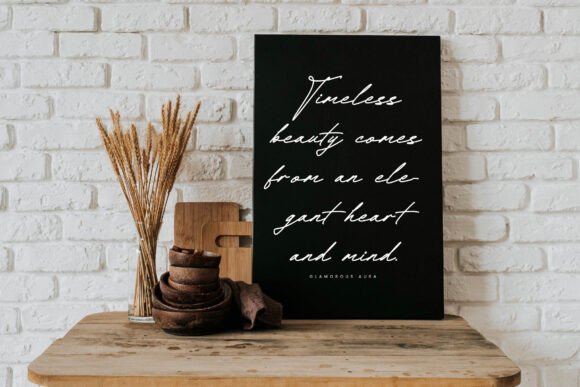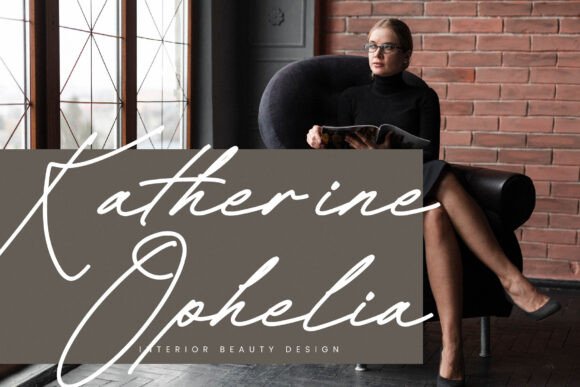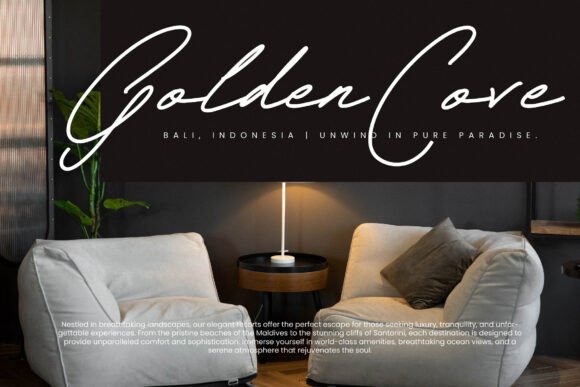
Introduction to Rullian Vicotas Font
As a designer, there’s nothing quite like that moment when a project comes together and you see your vision take shape. The thrill of creation is exhilarating, but it’s often the small details that make all the difference. A beautifully crafted font can elevate a design from ordinary to extraordinary, and that’s exactly what the Rullian Vicotas Font delivers. With its sleek, monoline signature script, this font is perfect for any project that demands a touch of luxury and sophistication.
Whether you’re working on a high-end branding project, designing a set of homewares, or creating a stunning invitation card, the Rullian Vicotas Font is an invaluable resource that’s sure to impress. Its high quality design and transparent background make it easy to use, and with its versatility, you can rest assured that it will be a valuable addition to your design toolkit.
Key Features of Rullian Vicotas Font
- Unique and elegant script font with a transparent background, perfect for adding a touch of sophistication to your designs.
- Includes 6 styles, each with a distinct flair, to cater to various design needs.
- Perfect for creating invitations, logos, and other design elements that require a touch of elegance and sophistication.
Honest Review: Rullian Vicotas Font
As a designer, I’m always on the lookout for high-quality design resources to elevate my creative projects. The Rullian Vicotas Font caught my attention, and I decided to give it a try. Here’s my honest review.
- The font has a unique and stylish design that can add a touch of elegance to any project.
- The transparent background makes it easy to use on any background or image.
- The font is highly customizable, allowing for adjustments in size, color, and style.
- The font may not be suitable for very small text sizes, as it can become difficult to read.
- The font’s unique design may not appeal to everyone’s taste.
Overall, I’m impressed with the Rullian Vicotas Font. It’s a great addition to any designer’s toolkit, offering high-quality design and flexibility. While it may have some limitations, it’s definitely worth considering for your next creative project.
Tips for Getting the Most Out of Rullian Vicotas Font
When using Rullian Vicotas Font, be sure to take advantage of its transparent background feature. This allows you to layer the font over images or other design elements for a seamless look. Additionally, consider using Rullian Vicotas Font for headings and titles to add a touch of elegance to your designs.
Rullian Vicotas Font is a versatile design resource that can be used for a variety of creative projects. Some common use cases include:
- Product packaging and labels
- Website headers and footers
Alternatives to Rullian Vicotas Font
Great Vibes Font is a high-quality, handwritten script font perfect for creative projects that require a touch of elegance. It’s ideal for wedding invitations, quotes, and other design elements that need a personal touch. Great Vibes Font is available for free download and features a transparent background, making it easy to integrate into any design.
Compared to Rullian Vicotas Font, Great Vibes Font has a more elegant and sophisticated feel, making it suitable for high-end design projects.
Pacifico Font is a beautiful, modern script font designed for creative projects that require a touch of sophistication. It’s perfect for branding, advertising, and other design elements that need a unique and memorable look. Pacifico Font is available for free download and features a transparent background, making it easy to use in any design.